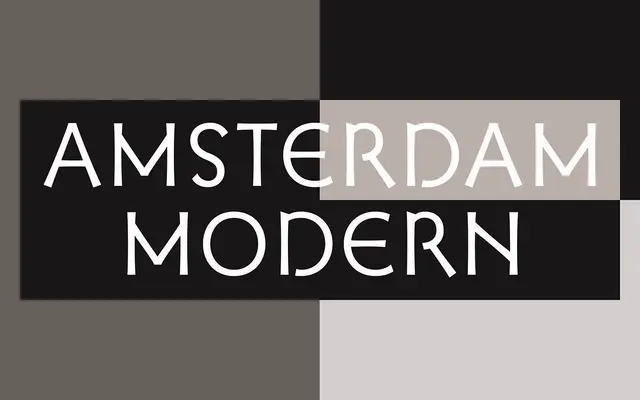
Amsterdam Modern specimen from Dharma Type
A three-weight display face drawn from the stepped gable rooftops of Amsterdam's canal buildings, mixing industrial geometry with handcrafted warmth.
The letterforms take their cue from the distinctive silhouettes of Dutch canal-house rooftops, translating architectural rhythm into type. Three weights make it practical for logos, product packaging and short headline copy where character matters more than text economy. The blend of geometric structure and organic warmth gives it a point of difference from purely industrial display faces.
The typeface draws on architectural forms and blends industrial precision with handcrafted warmth, placing it firmly in the display category with a geometric character suited to branding and packaging rather than extended text.